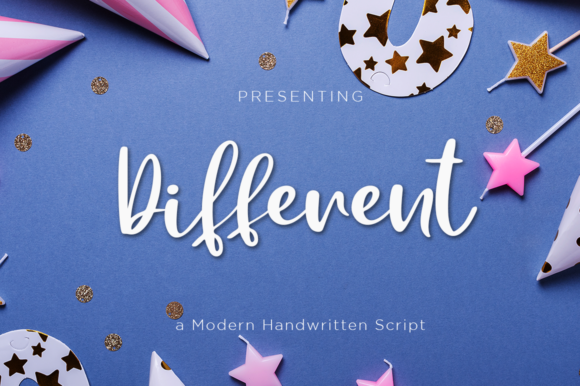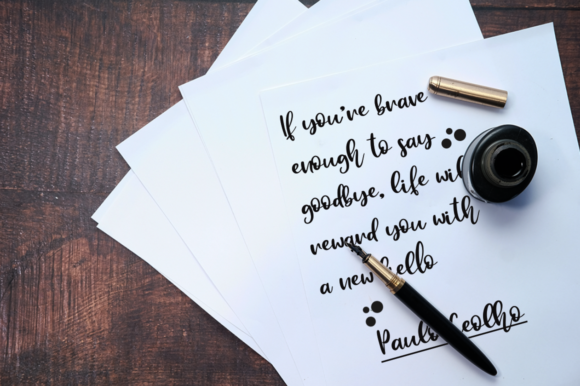
About Different Font
Different is a fun and trendy handwritten font. Whether you’re looking for fonts for Instagram or calligraphy scripts for DIY projects, this font will turn any creative idea into a true piece of art!